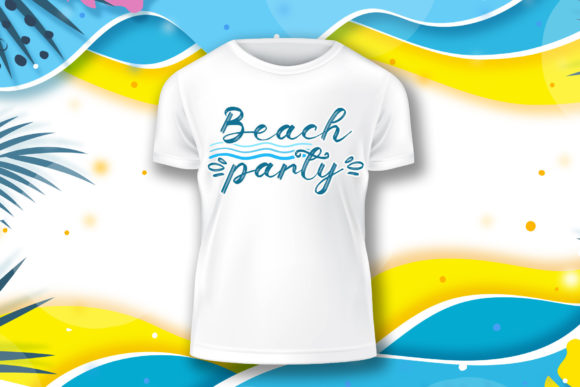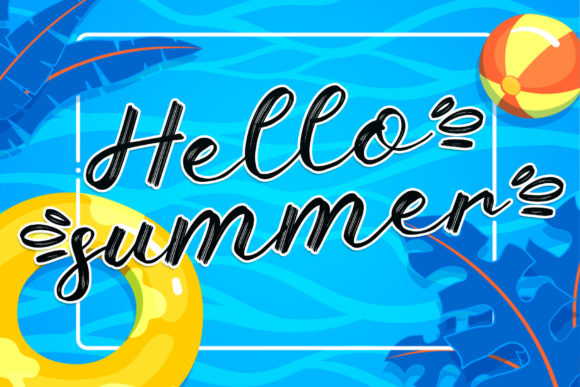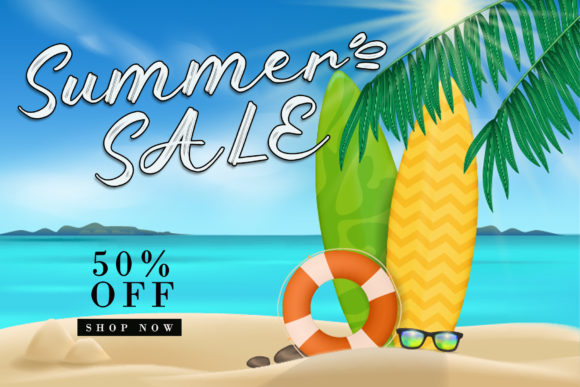
Sunny Brush Font
About Sunny Brush Font
Sunny Brush is a cool, cursive and genuine brushed handwritten font. Its natural and unique style makes it incredibly fitting to a large pool of designs.